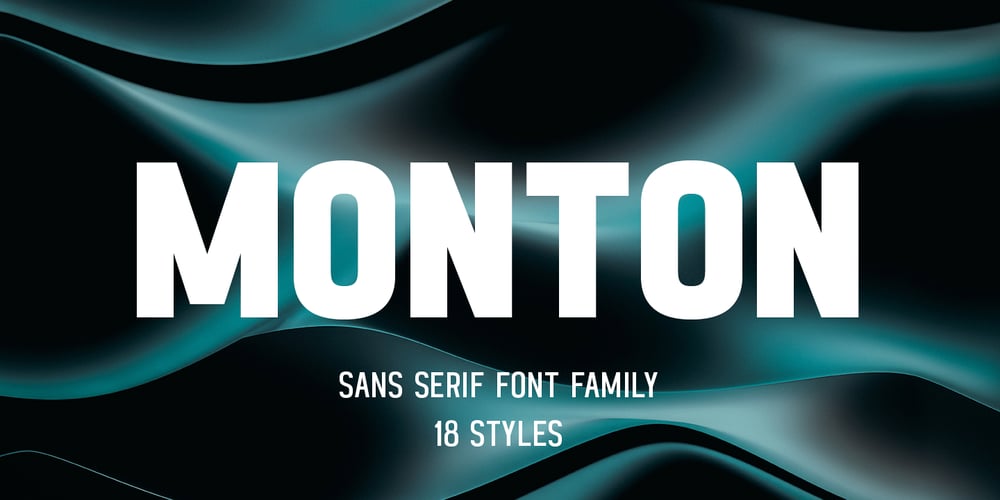
Monton Font Family was designed by Pavel Larin and published by Larin Type Co. Monton contains 18 styles and family package options. Monton is a wonderful font family that includes from thin to black style as well as in oblique style, a total of 18 fonts.This is a condensed block sans-serif font that is perfect for titles, logos, branding, posters, flyers, website design, advertising, labels, packaging, web titles, text descriptions and much more. It is well readable and irreplaceable in modern design and can be used as a main or additional one.